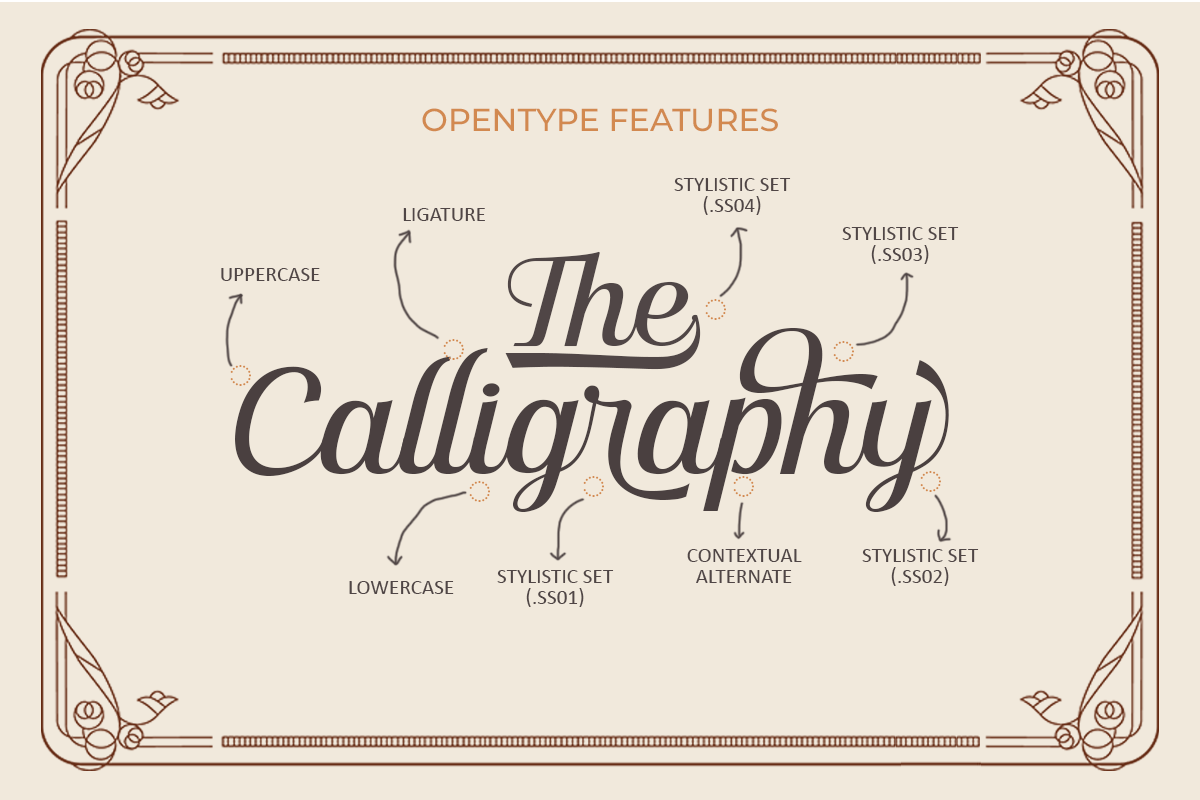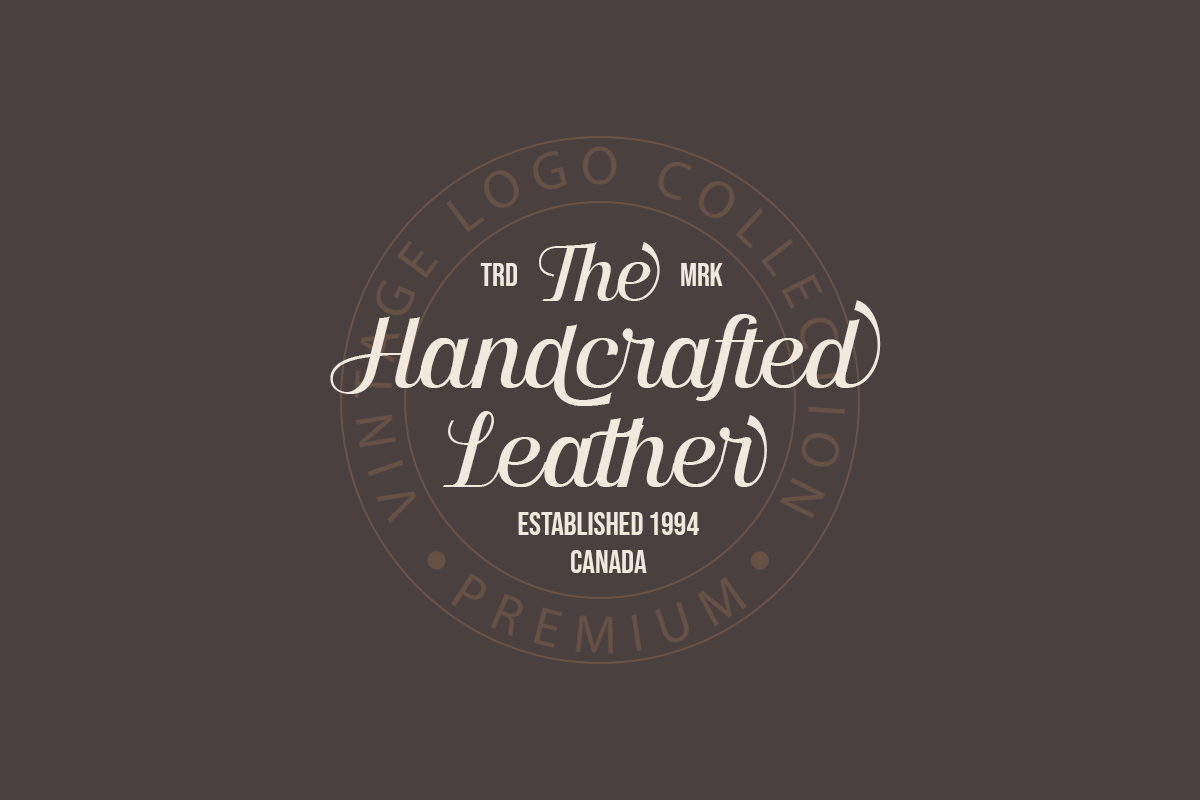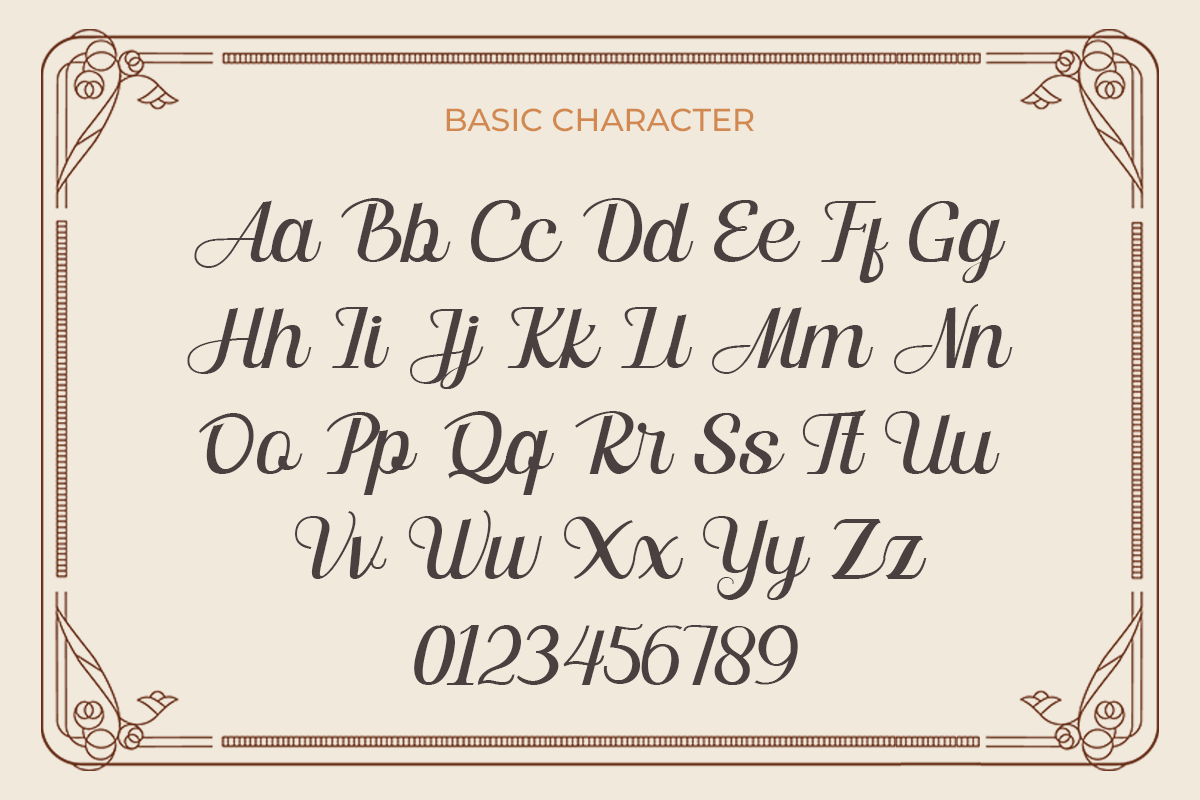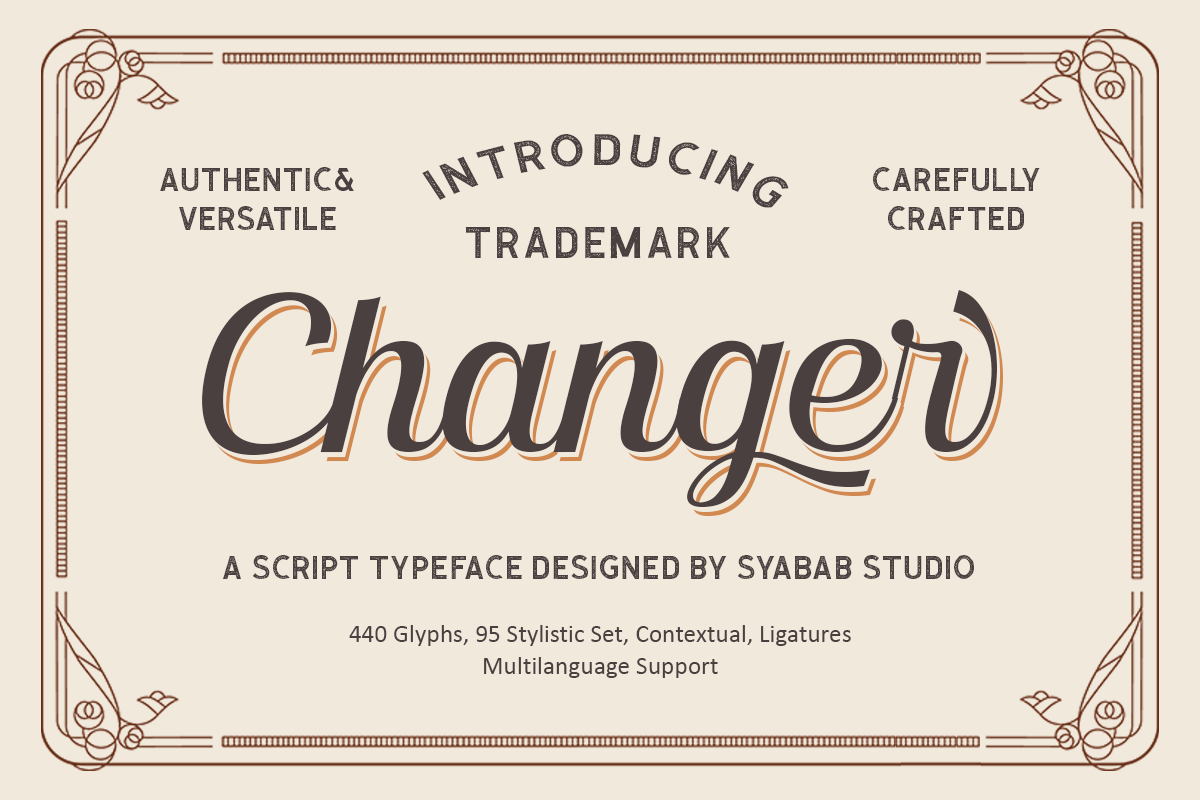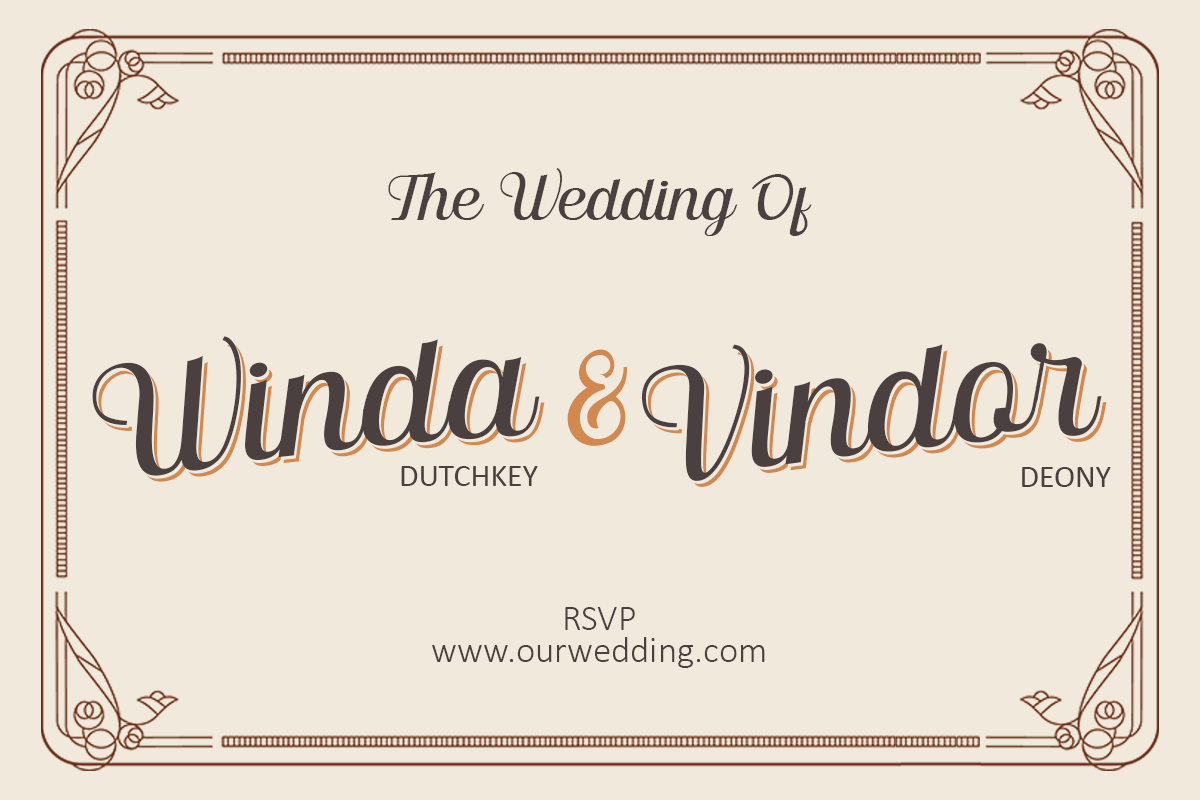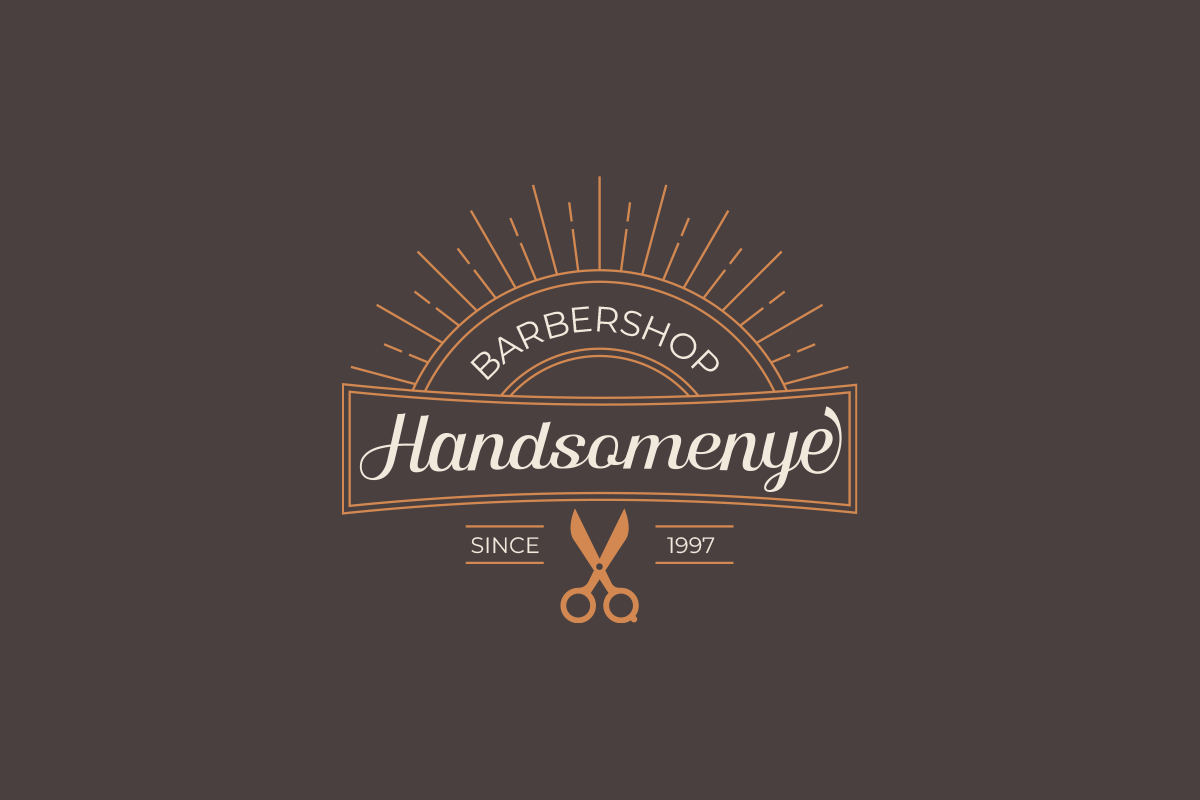
SS Changer - Script Typeface
SS Changer is a vintage-inspired script typeface that takes inspiration from sign painting, baseball, restaurant branding, and more. With a variety of swashy characters, you can really make Friday Script feel personalized for your client's project. Create headlines, logos, apparel designs, and more with this versatile script font!